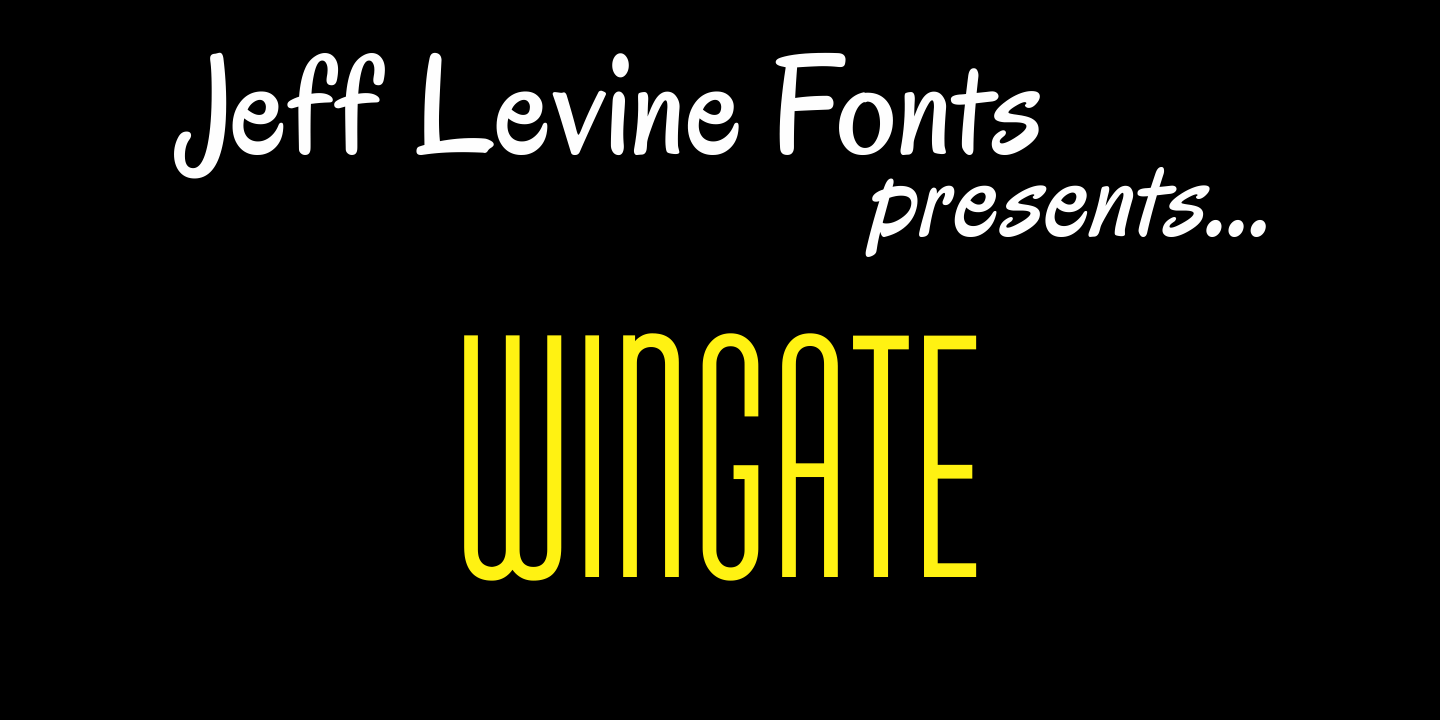
Wingate
The elegance of the 1940s and the Art Deco Era is evident in Wingate JNL from Jeff Levine.
Its tall, graceful styling is perfect for invitations, letterheads, announcements or anything that needs the look of yesterday with a sophisticated understatement.